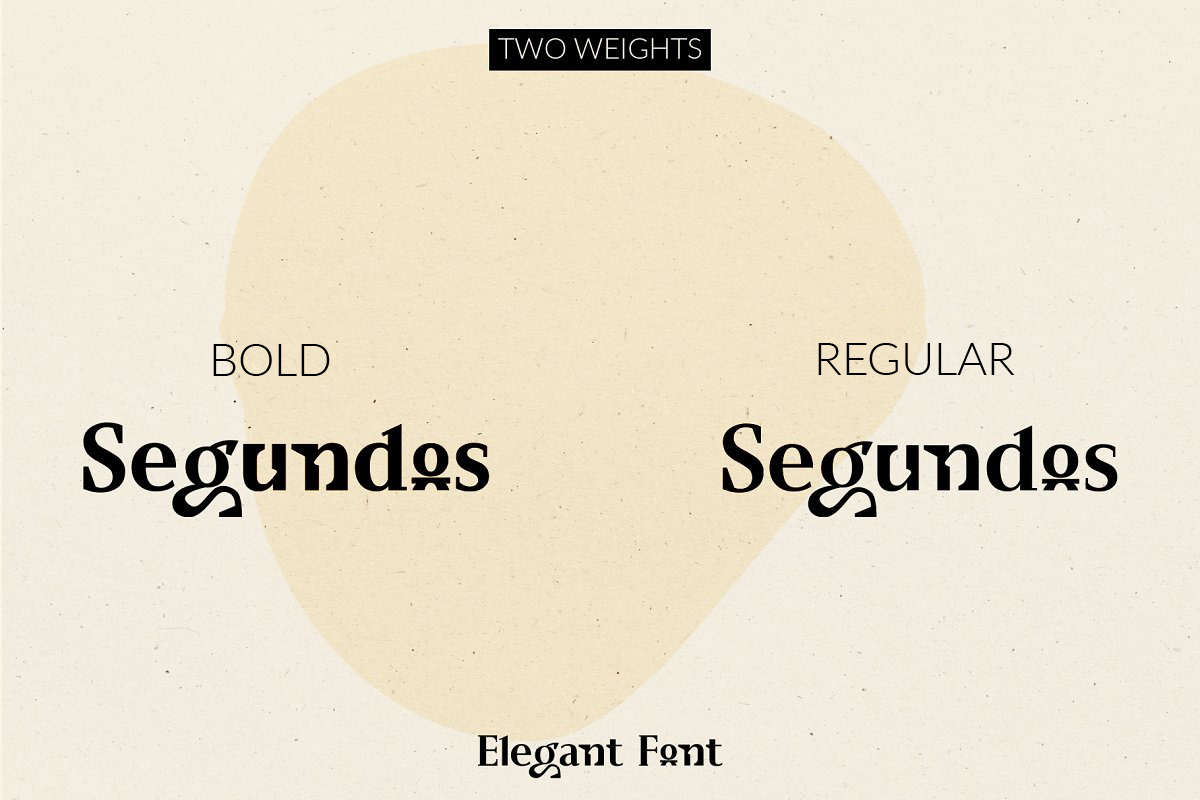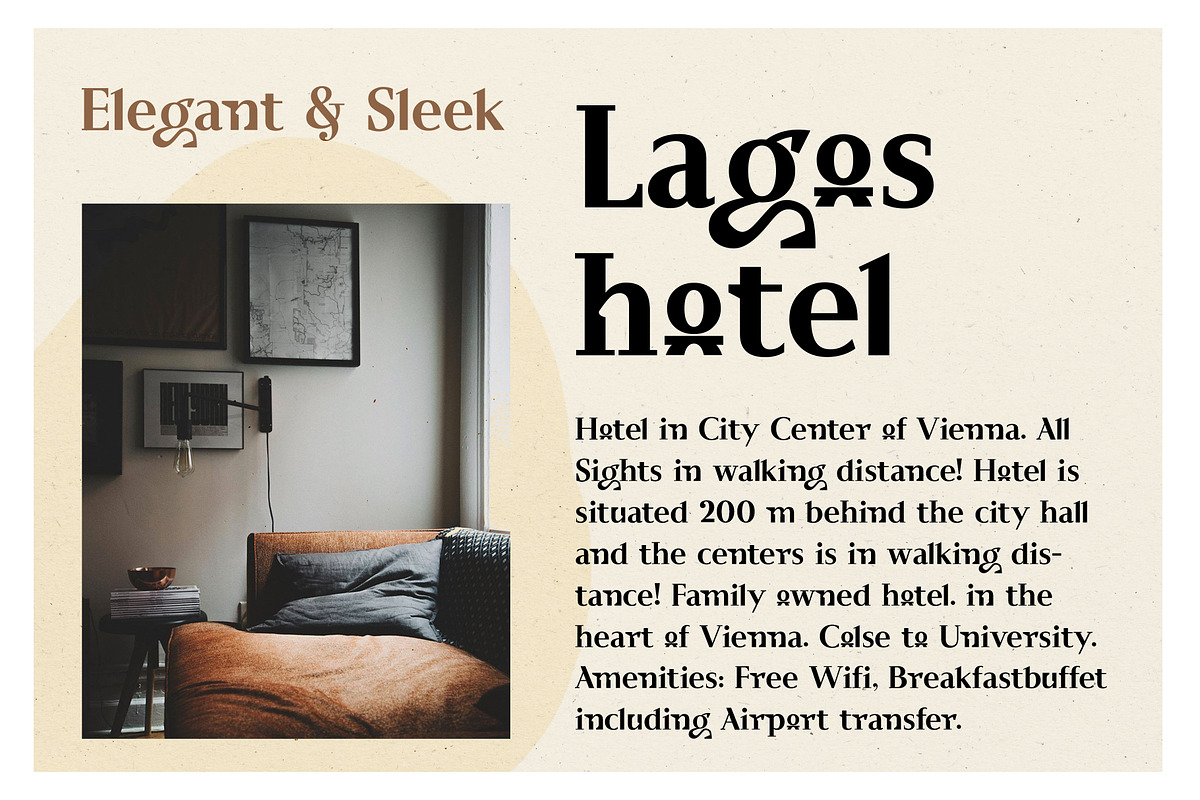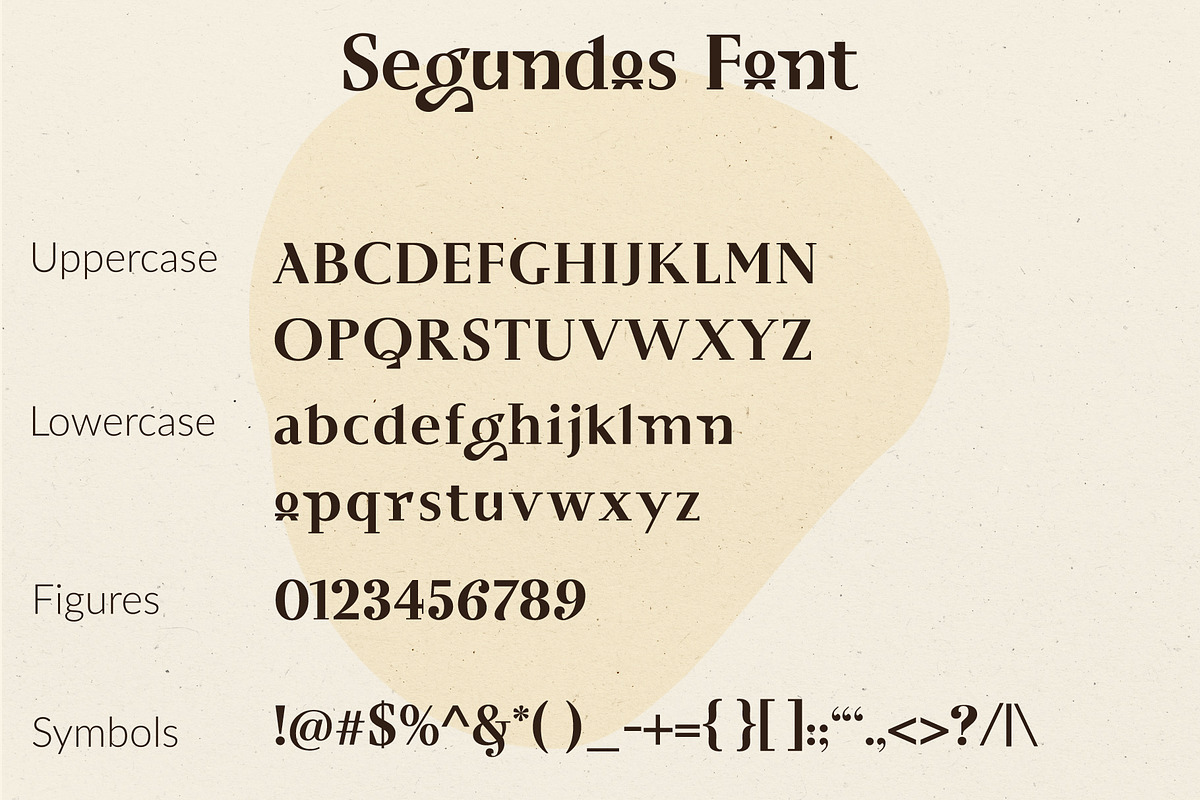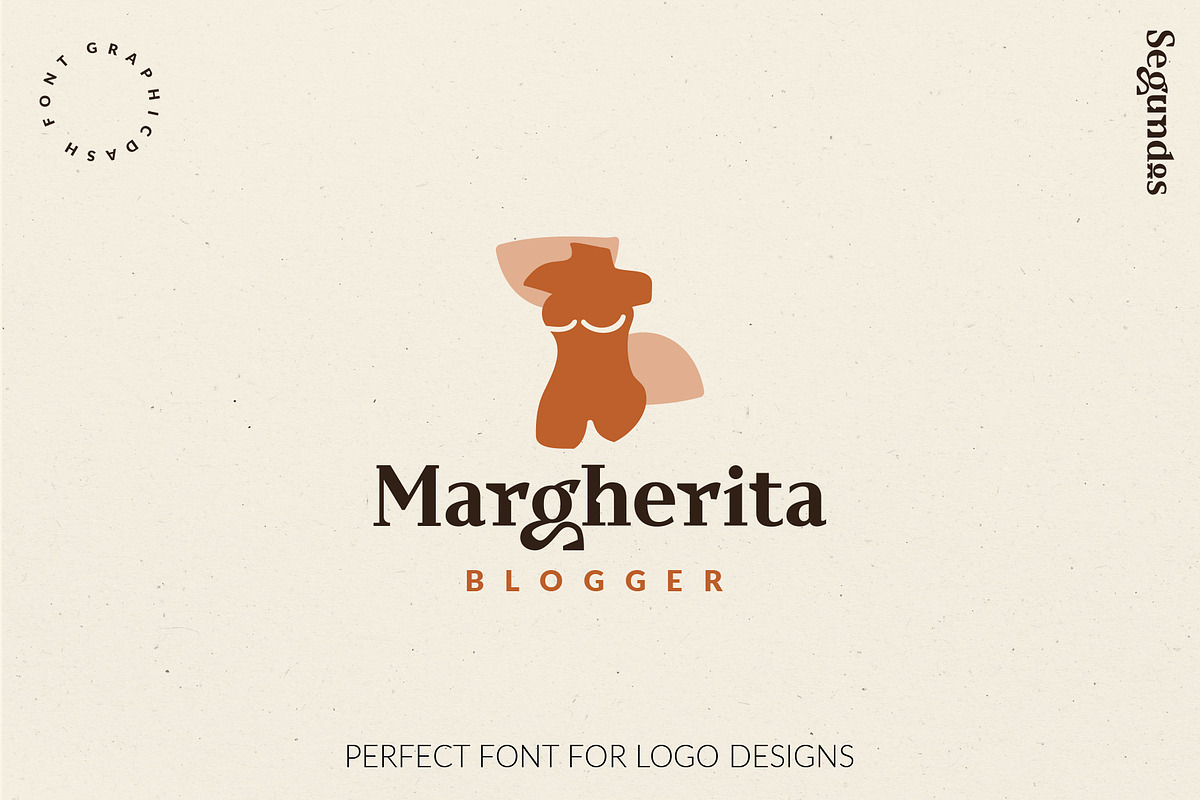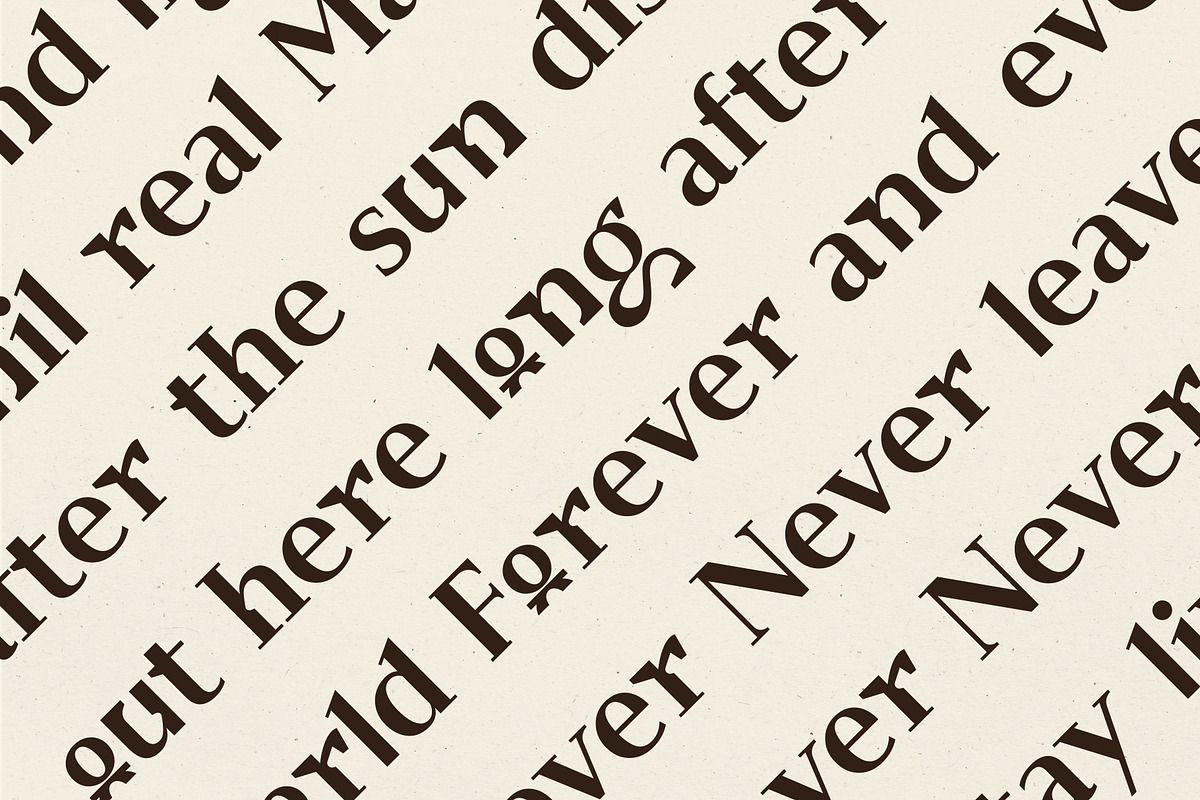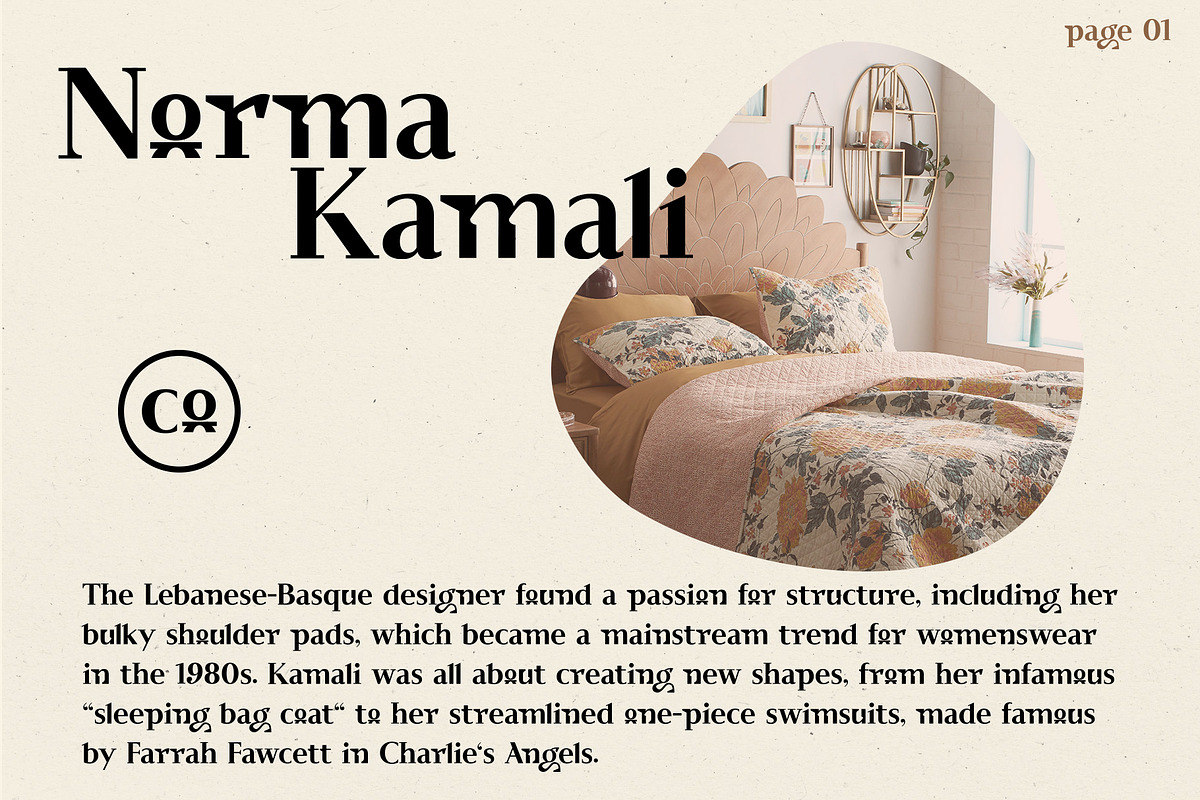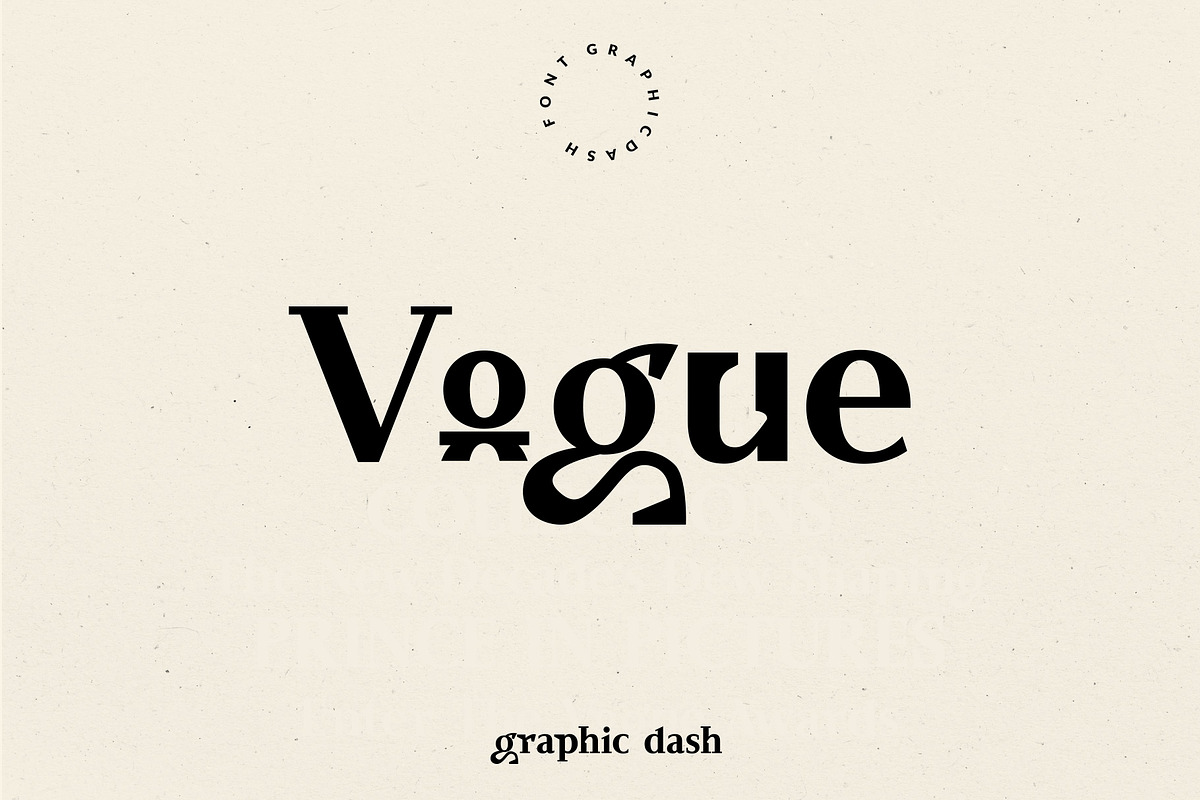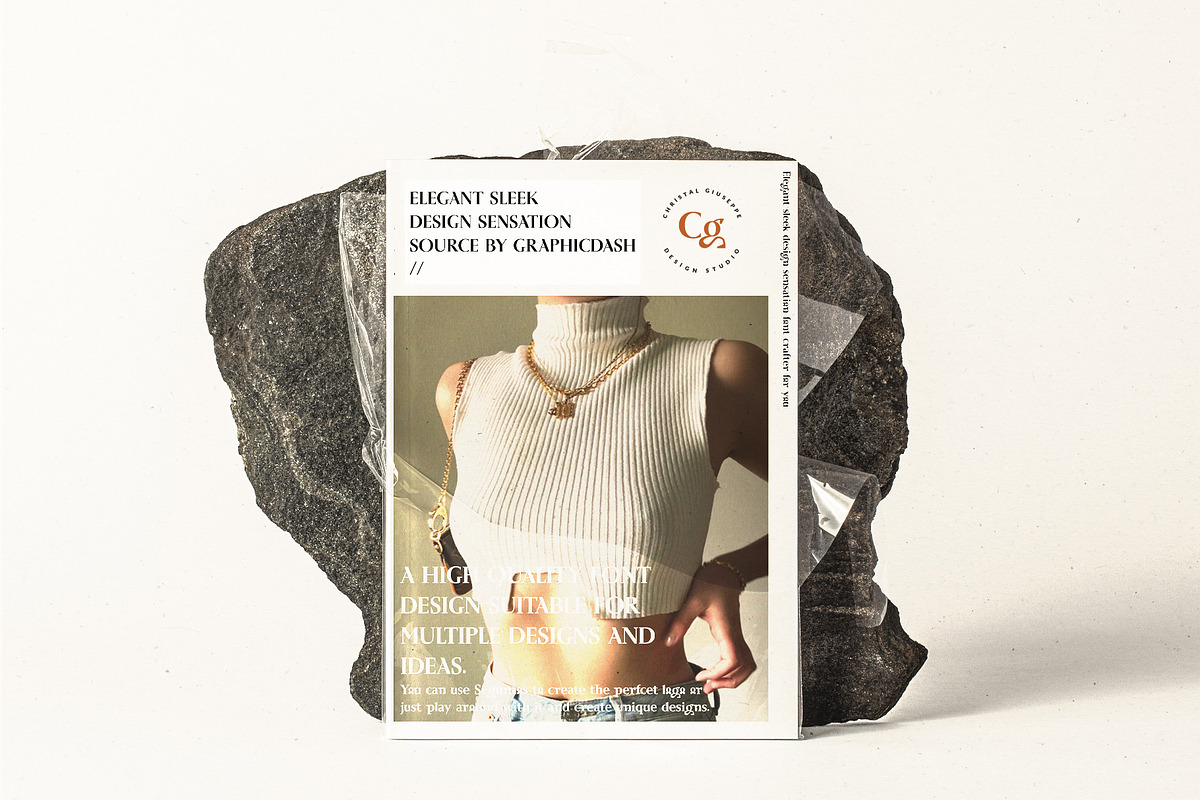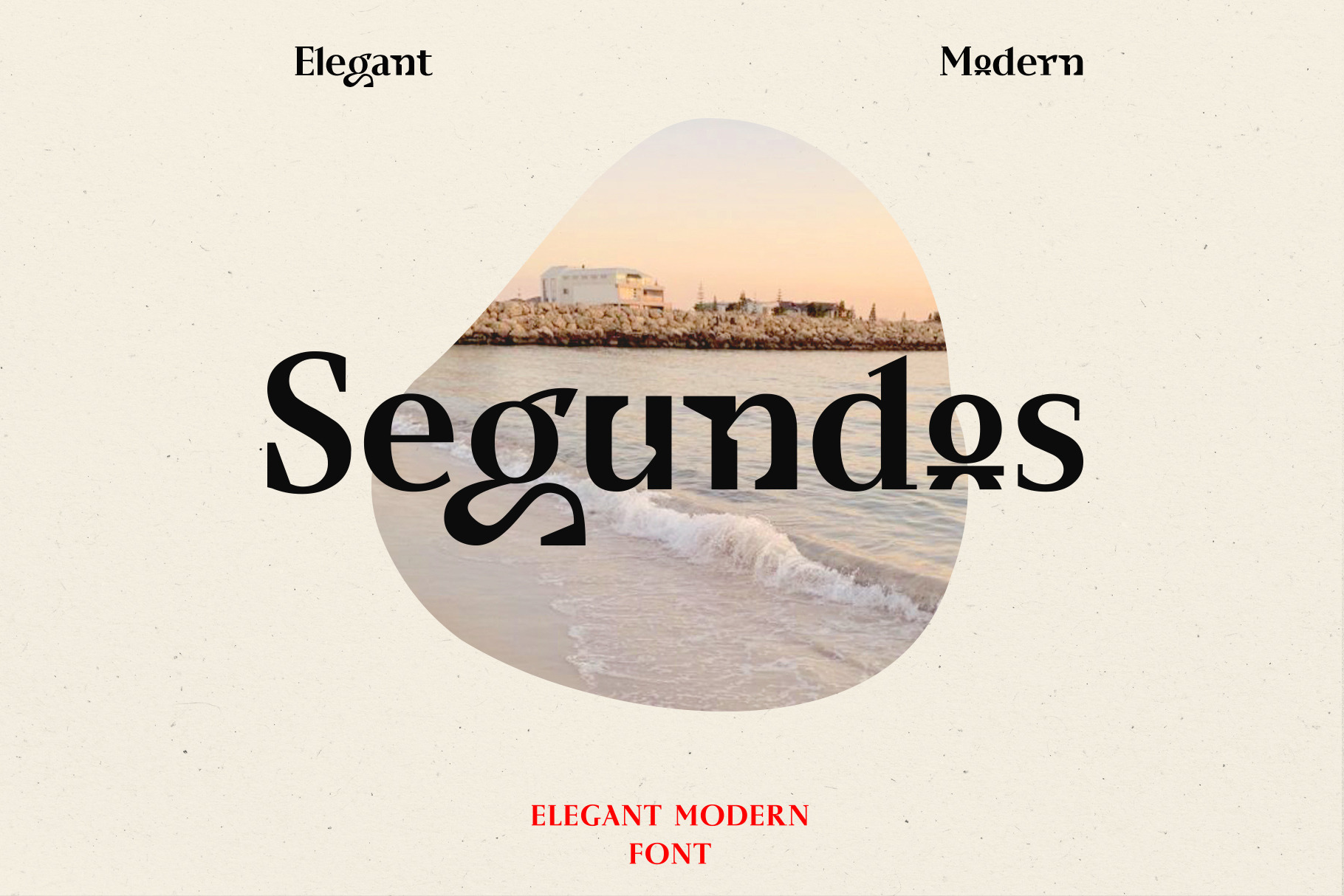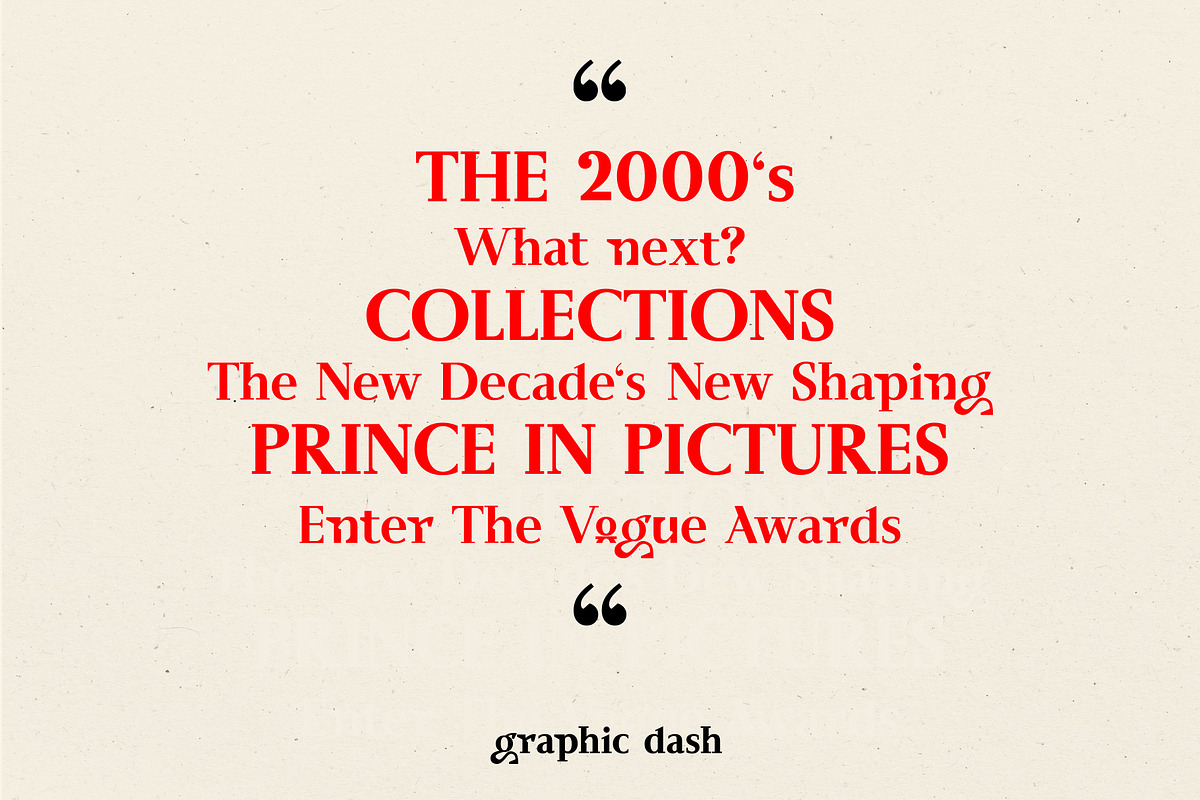
Segundos - Elegant/Modern Font
Segundo seeks to convey elegance in its purest form.
A very versatile font that works well in large and small sizes. Perfect for editorial projects, magazine headers, Logo designs, Clothing Branding, product packaging, and showcasing masculine and feminine qualities.
- 2 Font Weights - Regular/Bold
- Uppercase/lowercase, numbers & punctuation.